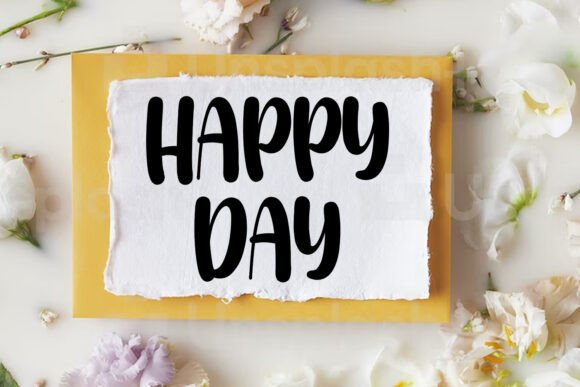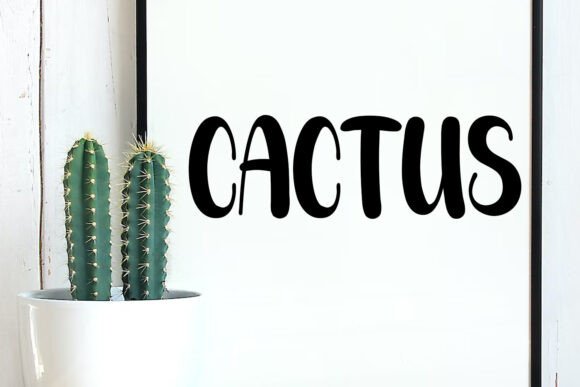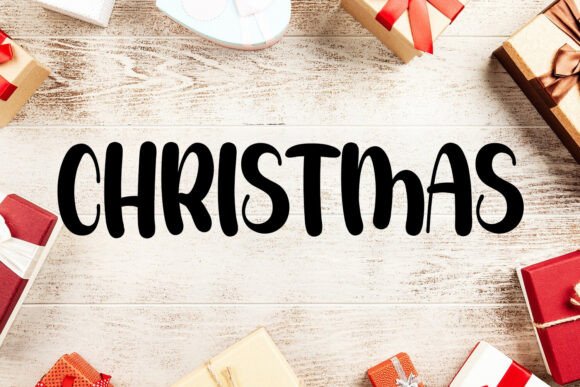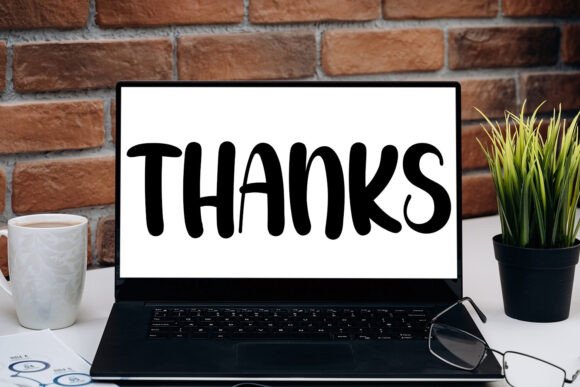
Discover the Joy of Baby Chubby Font
Do you remember that moment when a simple font choice completely transformed the look and feel of your project? Maybe it was a bold, eye-catching font that caught everyone’s attention or a subtle, elegant one that added a touch of sophistication. Whatever it was, you can’t deny the impact a well-chosen font can have on our perception of a design. For designers, finding that perfect font can be a game-changer.
Enter Baby Chubby Font – a delightful and versatile font designed to elevate your designs to the next level. Whether you’re creating a YouTube banner, a wedding invitation, or an ID card, Baby Chubby Font is the perfect companion to help you achieve your creative vision. Its unique blend of simplicity and uniqueness makes it a valuable asset for designers looking to add a personal touch to their work.
Baby Chubby Font Key Features
- Font Style: Casual, Cursive, Script
- Unique Characteristics: Includes various swashes, ligatures, and flourishes to add a playful touch
Baby Chubby Font Review
Overall, I think the Baby Chubby Font is a unique and playful addition to any design project. It’s a great choice for those looking to create a fun and lighthearted atmosphere. ✨ The font’s rounded edges and chunky texture give it a soft, cuddly feel that’s perfect for children’s products, nursery decor, or even food branding.
- The font is highly customizable, with a wide range of weights and styles available.
- It’s highly legible, even at small font sizes, making it a great choice for text-heavy designs.
- The font is also highly versatile, working well for both digital and print applications.
- The font may not be the best choice for formal or professional designs, as it can come across as too playful or immature.
- The font’s chunky texture can be overwhelming if used in excess, so it’s best to use it sparingly.
Overall, I think the Baby Chubby Font is a great choice for designers looking to add a touch of whimsy to their projects. Just be mindful of the limitations and use it thoughtfully.
Tip: Use the Baby Chubby Font for titles and headings to add a playful touch to your design.
Tip: Use the Baby Chubby Font for graphics and illustrations to add a whimsical feel.
Tip: Use the Baby Chubby Font for titles and headings to add a playful touch to your presentation or document.
The Baby Chubby Font is ideal for:
- Children’s books and educational materials.
- Party invitations and decorations.
- Food labels and packaging.
- Playful social media posts and graphics.
Alternatives to Baby Chubby Font
Great Vibes is a handwritten font that works well for casual, friendly, and approachable designs. It’s ideal for social media posts, advertisements, and other creative projects that require a relaxed tone.
Compared to Baby Chubby Font, Great Vibes has a more modern and trendy feel, making it a great choice for designers who want to add a touch of sophistication to their designs.
Cream Soda is a playful and whimsical font that’s perfect for children’s products, food packaging, and other designs that require a fun and youthful vibe.
Compared to Baby Chubby Font, Cream Soda has a more rounded and bubbly feel, making it a great choice for designers who want to add a sense of playfulness to their designs.
Alex Brush is a elegant and sophisticated font that’s ideal for high-end designs, such as luxury branding, weddings, and other special occasions.
Compared to Baby Chubby Font, Alex Brush has a more refined and polished feel, making it a great choice for designers who want to add a touch of elegance to their designs.
Lobster is a bold and eye-catching font that’s perfect for headings, titles, and other designs that require a sense of drama and excitement.
Compared to Baby Chubby Font, Lobster has a more dramatic and attention-grabbing feel, making it a great choice for designers who want to add a sense of energy to their designs.
Q: What is the recommended font size for using Baby Chubby Font?
The recommended font size for Baby Chubby Font is between 12pt and 24pt, depending on the design application and intended use. However, feel free to experiment with different font sizes to achieve the desired visual effect.